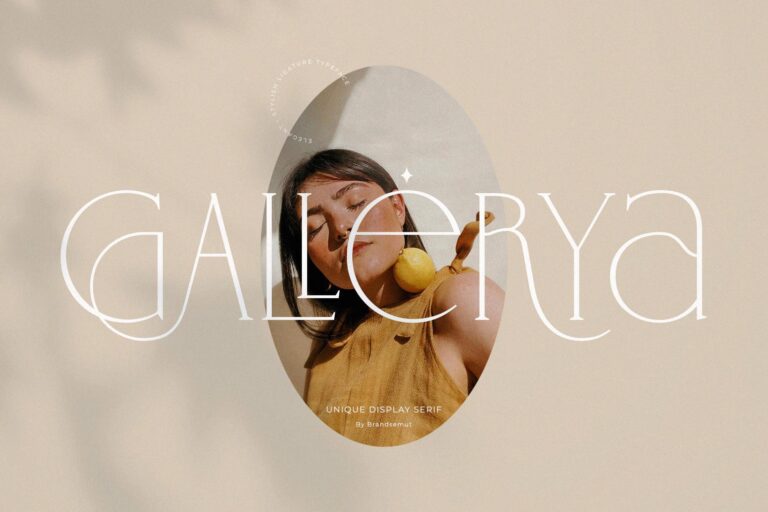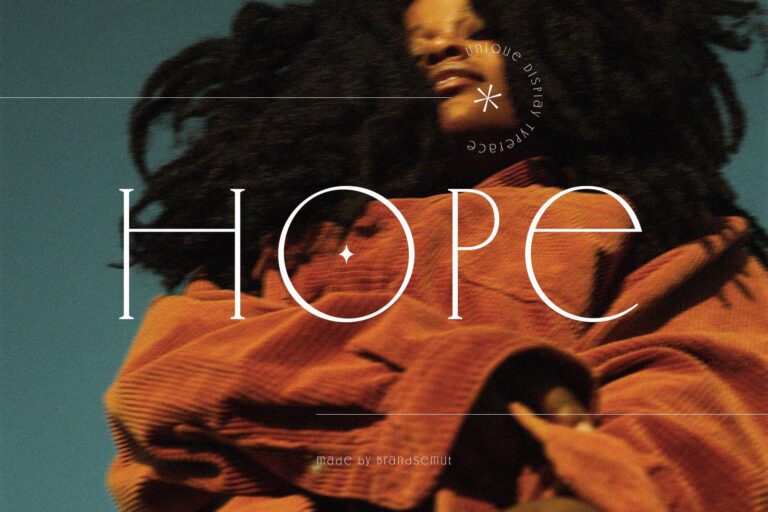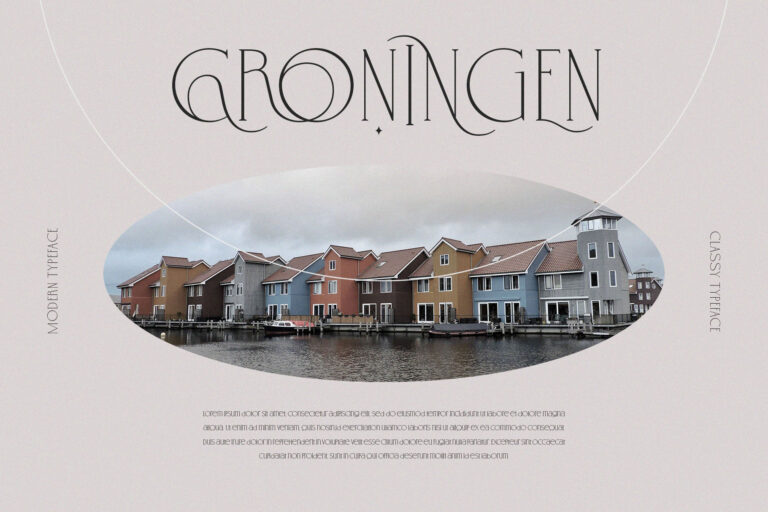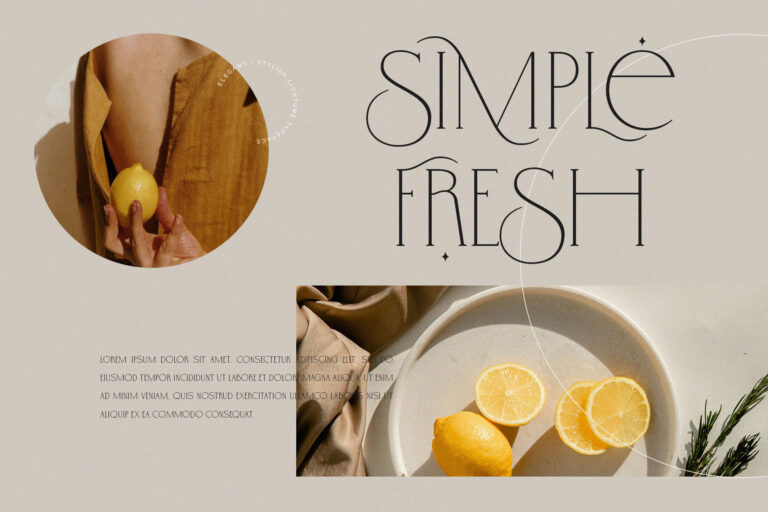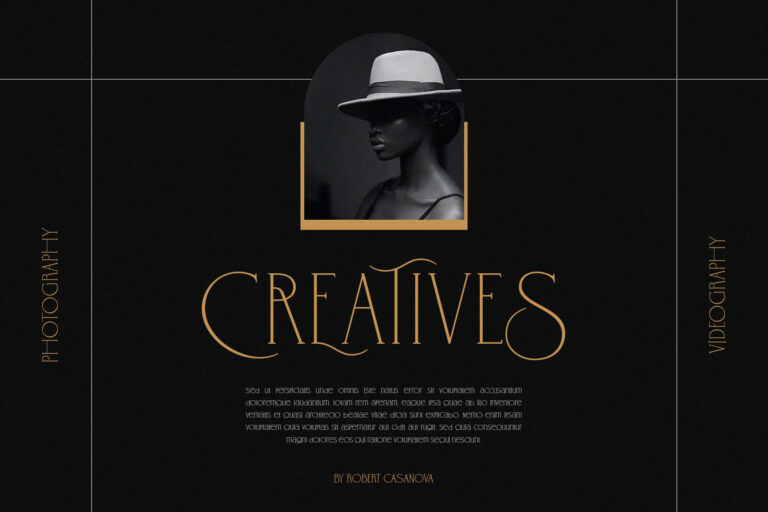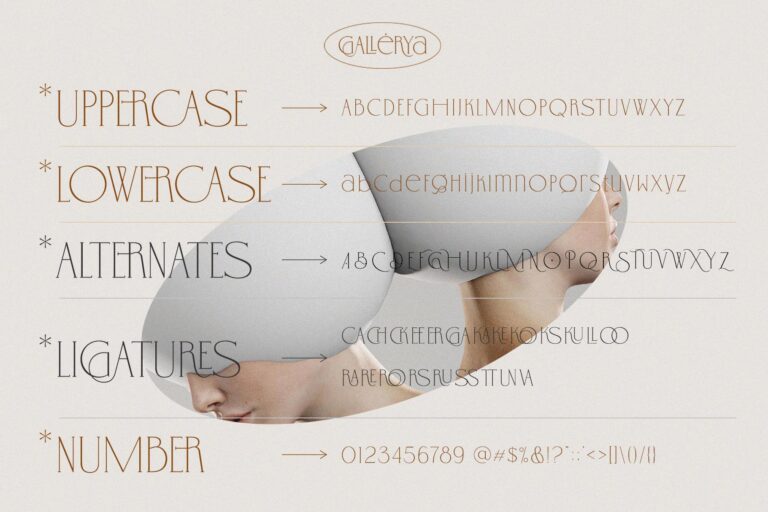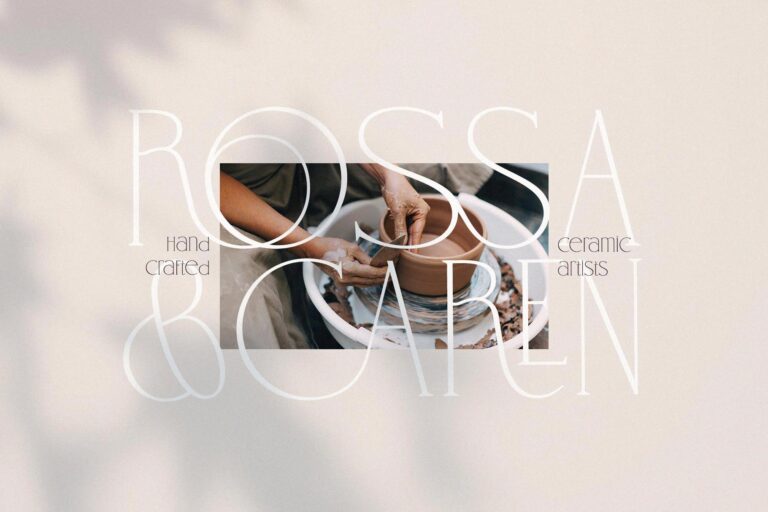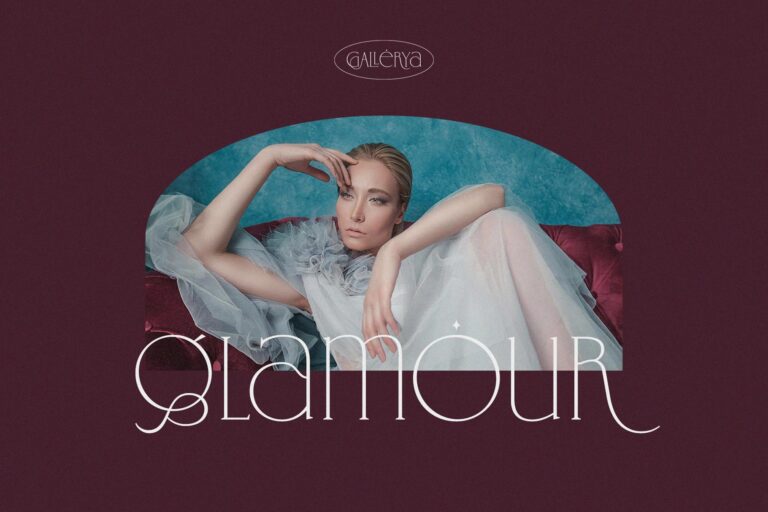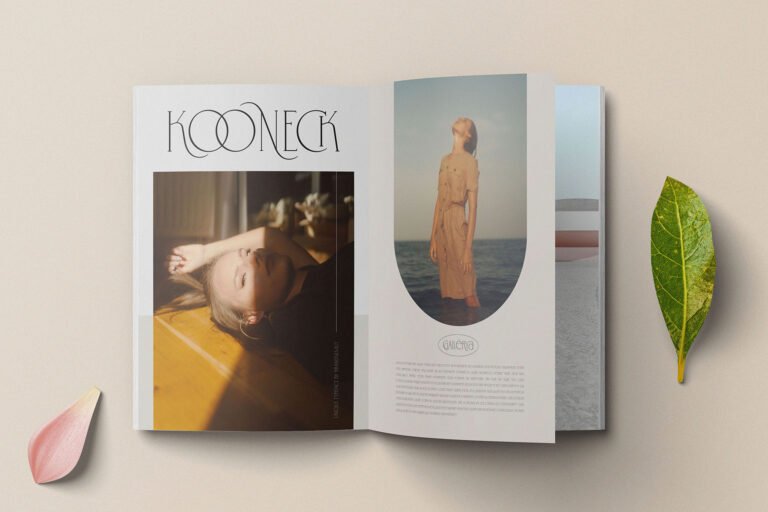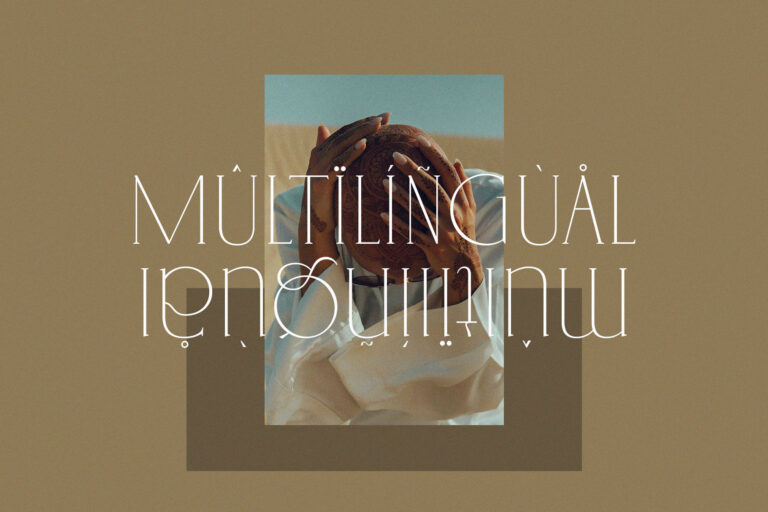
- Gallerya – Unique Ligature Typeface
Introducing our new “Gallerya”, Modern ligature typeface with Unique, Classy and Stylish. Is perfect for branding, logos, invitation, master heads, and more.
Denike Features :
– Ligatures
– Multilanguage
– Alternates